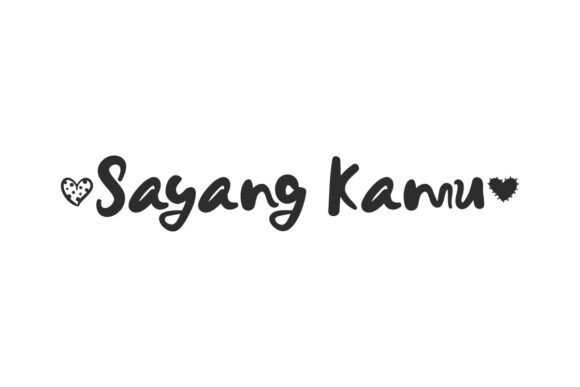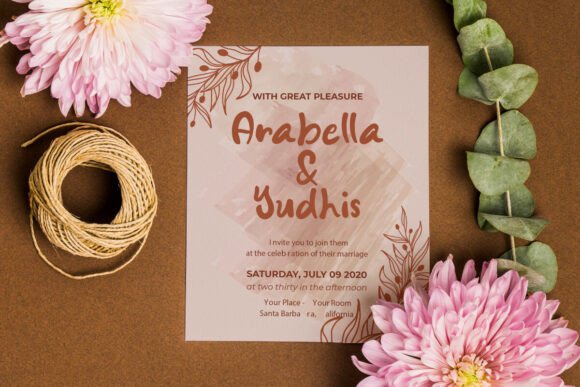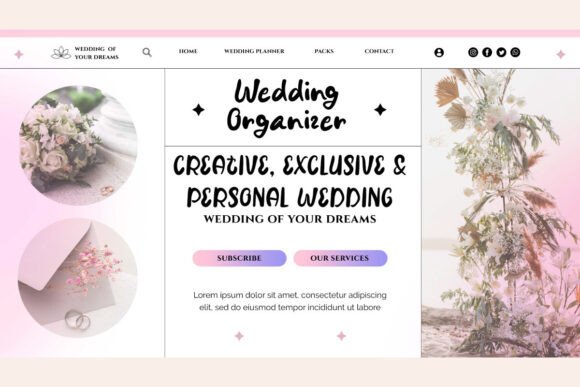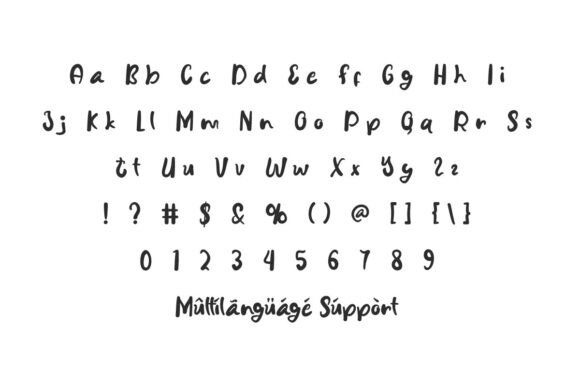
Sayang Kamu Font: A Cute Handwritten Script for Wedding Invitations
About the Sayang Kamu Font
The wait is over! The incredible Sayang Kamu Font is now available for your design toolkit. Sayang Kamu Font is romantic original handwriting and looks messy unique in its own way, it will add an original and stylish touch to any creative project such as apps, book titles, branding, covers, greeting card, menu flyer, creating logos, packaging design, poster, quotes, stationery, website pages, wedding invitation, etc. Let’s create a beautiful project with this font.
Sayang Kamu Font Usage Examples
Sayang Kamu Font Example